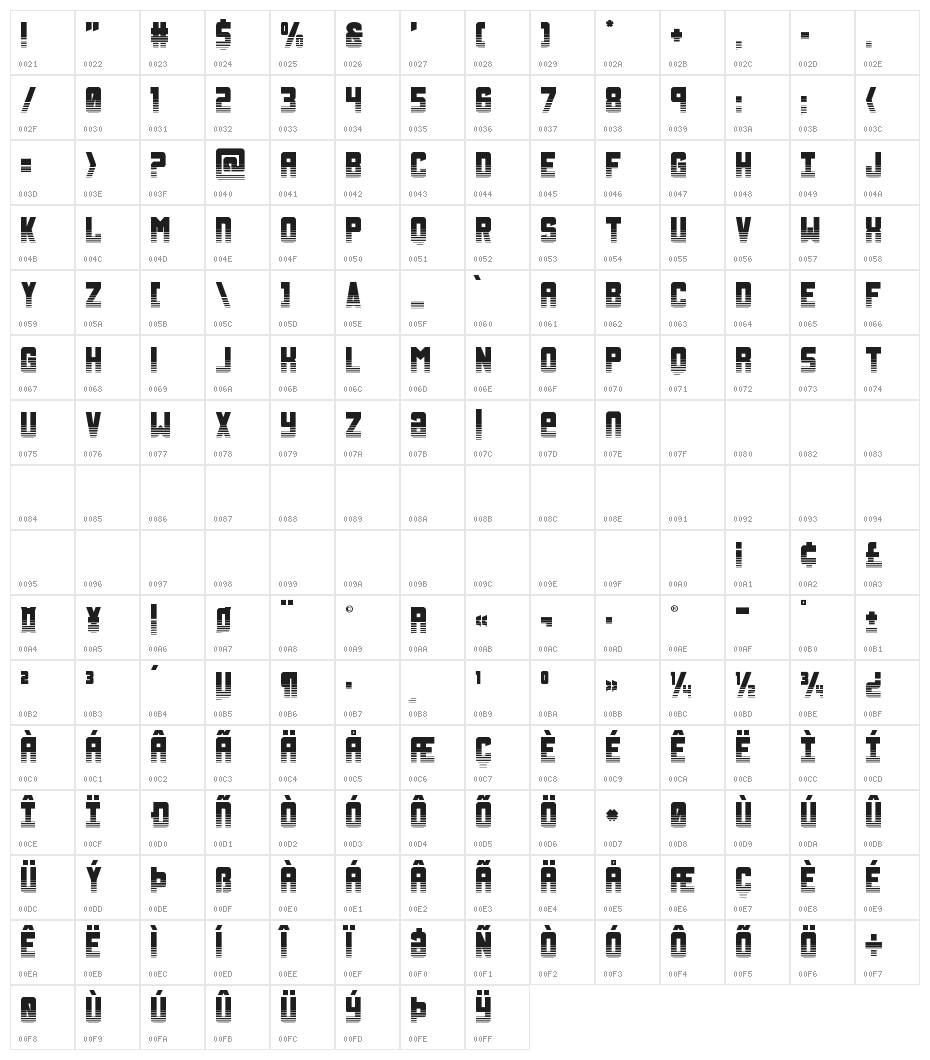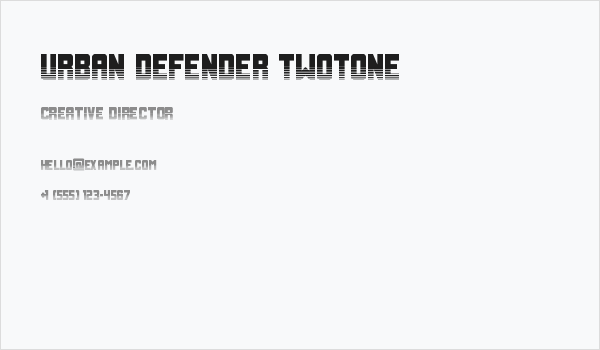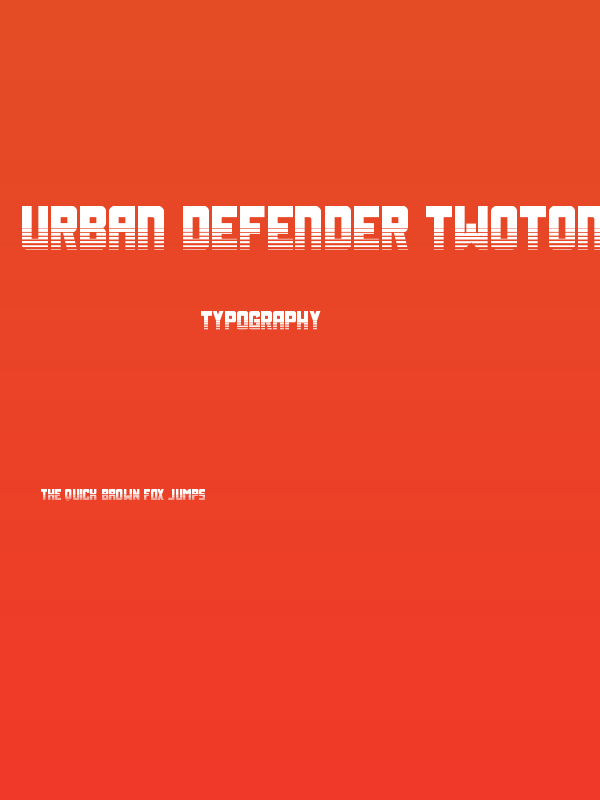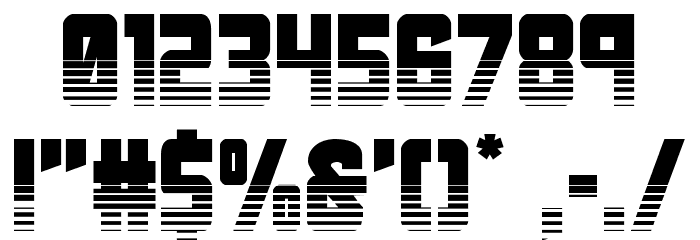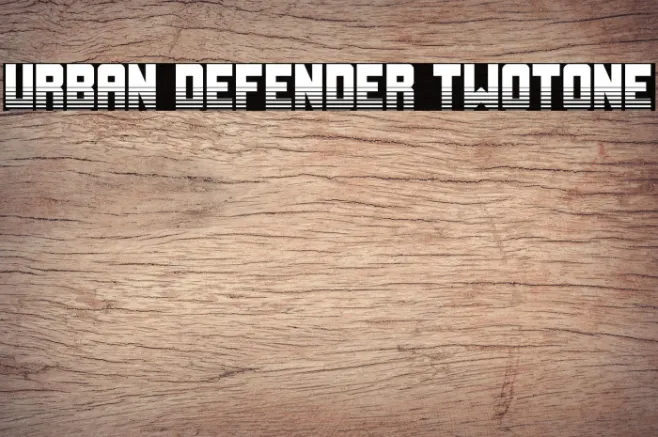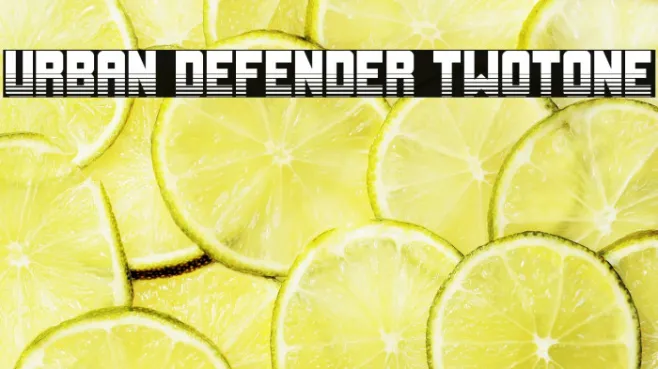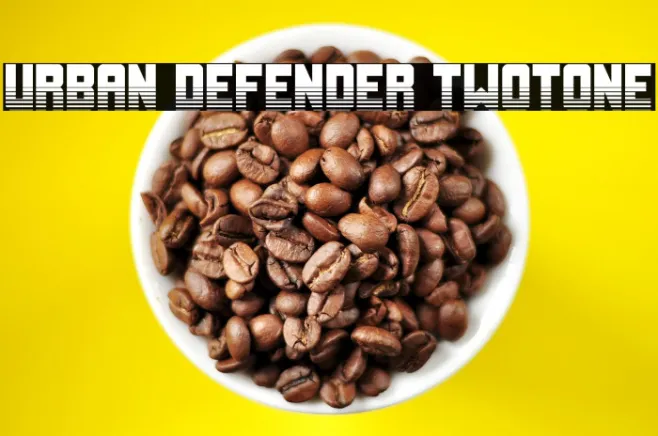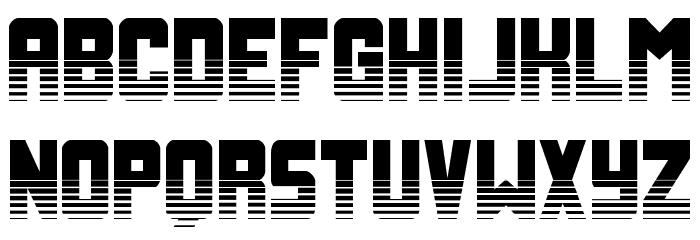
Urban Defender TwoTone Font
Urban Defender TwoTone Description
This font features a bold, geometric design with a distinctive two-tone effect. The characters are constructed with solid black upper halves and striped lower halves, creating a dynamic and modern appearance. The uppercase letters are uniform in height, while the lowercase letters maintain a consistent style. The numerals and special characters follow the same design principles, ensuring a cohesive look across all glyphs. The font's unique style makes it stand out, ideal for projects that require a strong visual impact.
URBAN-DEFENDER-TWOTONE UPPERCASE
URBAN-DEFENDER-TWOTONE LOWERCASE
URBAN-DEFENDER-TWOTONE OTHER CHARS